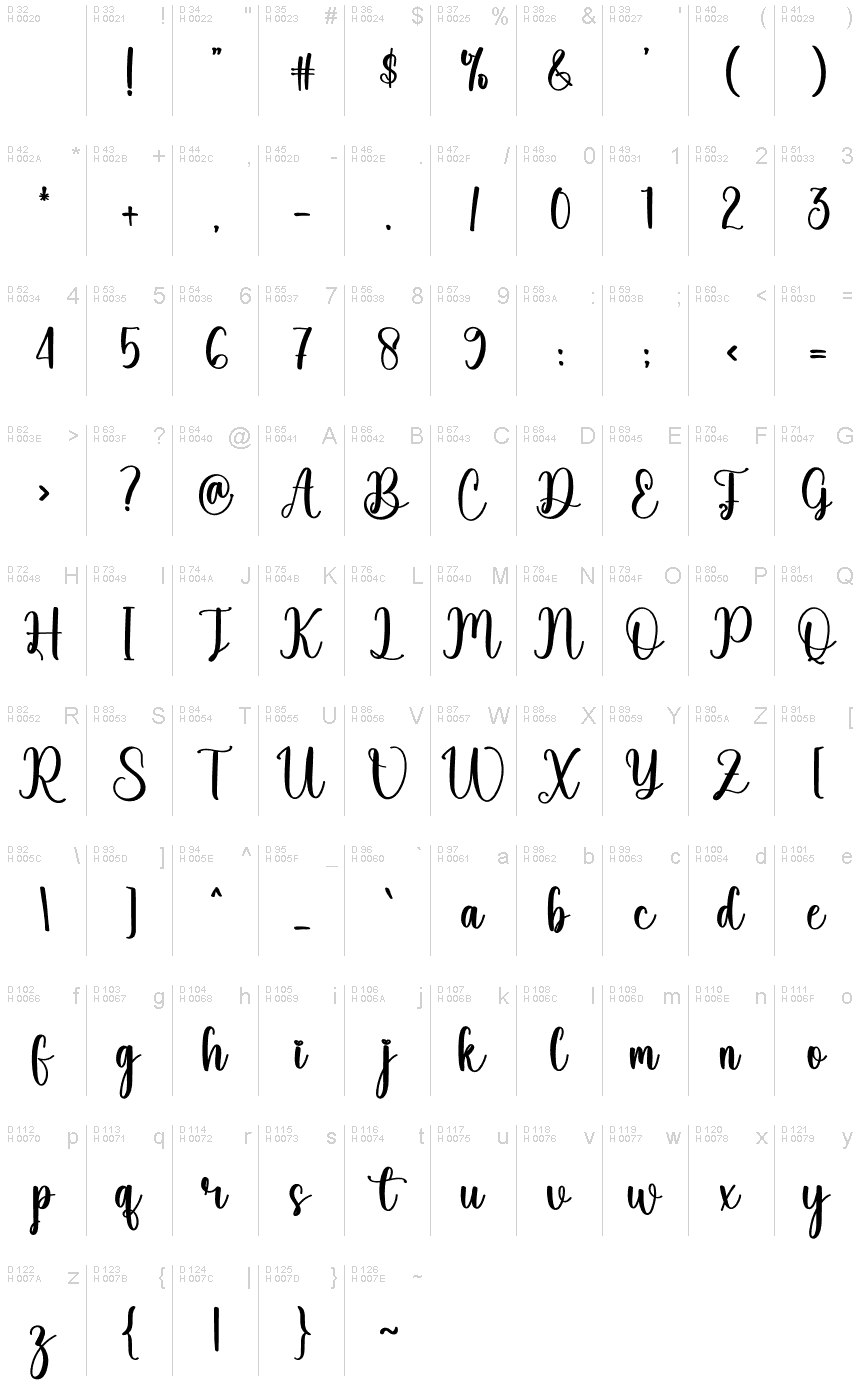
Easter
Easter, an exquisite calligraphy font designed by Inermedia Studio, effortlessly blends elegance and modernity. With its semi-light weight, this font is perfect for adding a touch of sophistication to wedding invitations, event posters, or branding projects seeking a luxurious appeal. Its graceful curves and flowing strokes create a harmonious balance that adds an air of refinement to any design. Whether it's creating captivating headlines or crafting delicate logos, Easter is the go-to font for projects that demand both style and grace. Elevate your designs with the timeless beauty of Easter Typeface.